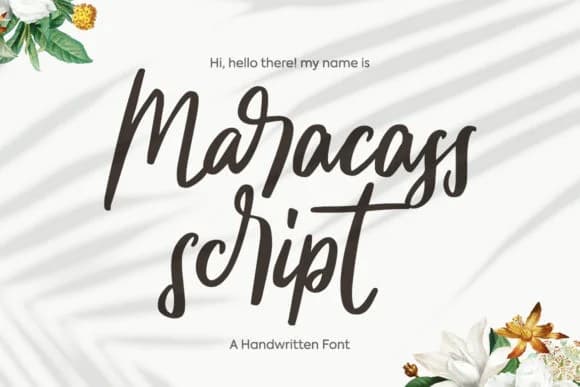
1 / 5About Maracass Script Font
This is the kind of font that brings a relaxed, contemporary energy to your work without trying too hard. Maracass Script Font from EighteenStudio is a modern handwriting style with genuine personality and an approachable feel that speaks to designers looking for authentic character in their type choices.
The script really shines on wedding invitation suites, where its casual letterforms add warmth and approachability without feeling overly formal or stiff. You'll find it equally at home lettering personalized gift tags, crafting rustic menu cards for small gatherings, or adding visual interest to social media graphics that need a more human touch than typical fonts provide. Packaging for small-batch beauty products and indie brands also benefits from its hand-drawn quality, which makes designs feel sincere rather than mass-produced.
The flowing letterforms carry enough personality to anchor a design on their own, but they also play well with other typefaces. Pair Maracass Script with a clean, minimal sans-serif like Open Sans or Montserrat to ground longer passages of body text and provide visual breathing room. The contrast between flowing script and steady geometric letterforms creates natural hierarchy and keeps designs from feeling too decorative. You can get it on Creative Fabrica and start working with it right away.
Maracass Script Font is a script font that shines as a display or heading face. Pair it with a clean sans-serif or serif font for body text β the contrast creates a clear hierarchy while the two styles stay balanced and easy to read.